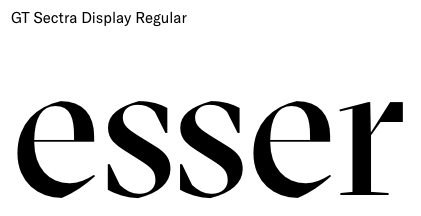
Any idea what font this studio is using?
It's close to GT Sectra Display, but a little rounder. Any help is much appreciated.
It's the logo of a clothing and lifestyle brand called Esser Studio. Looking for the font for personal use.